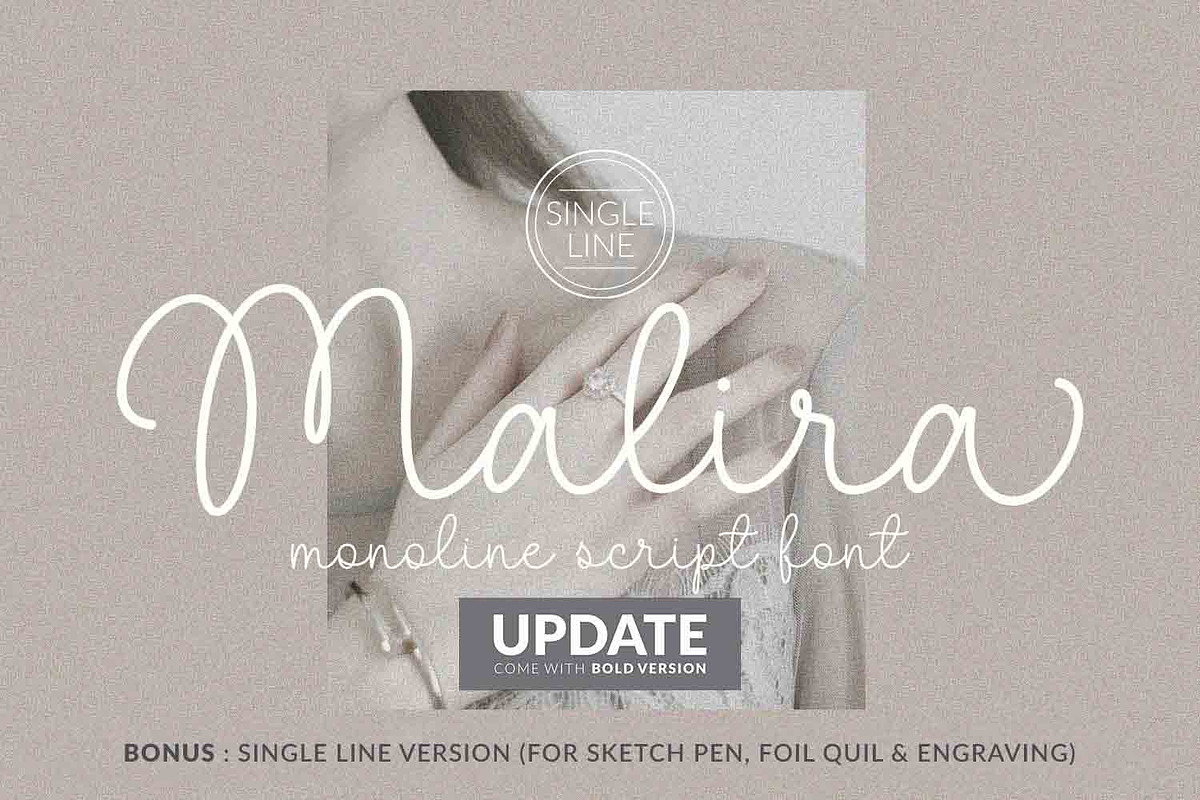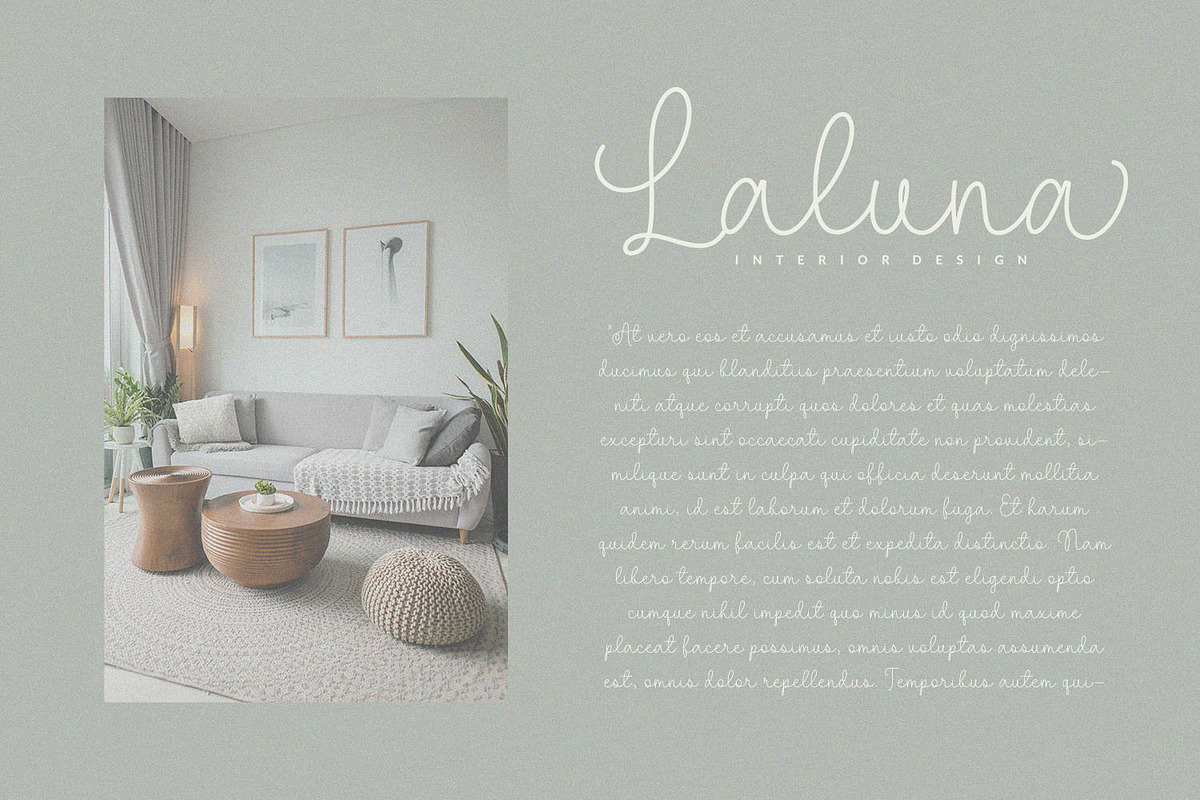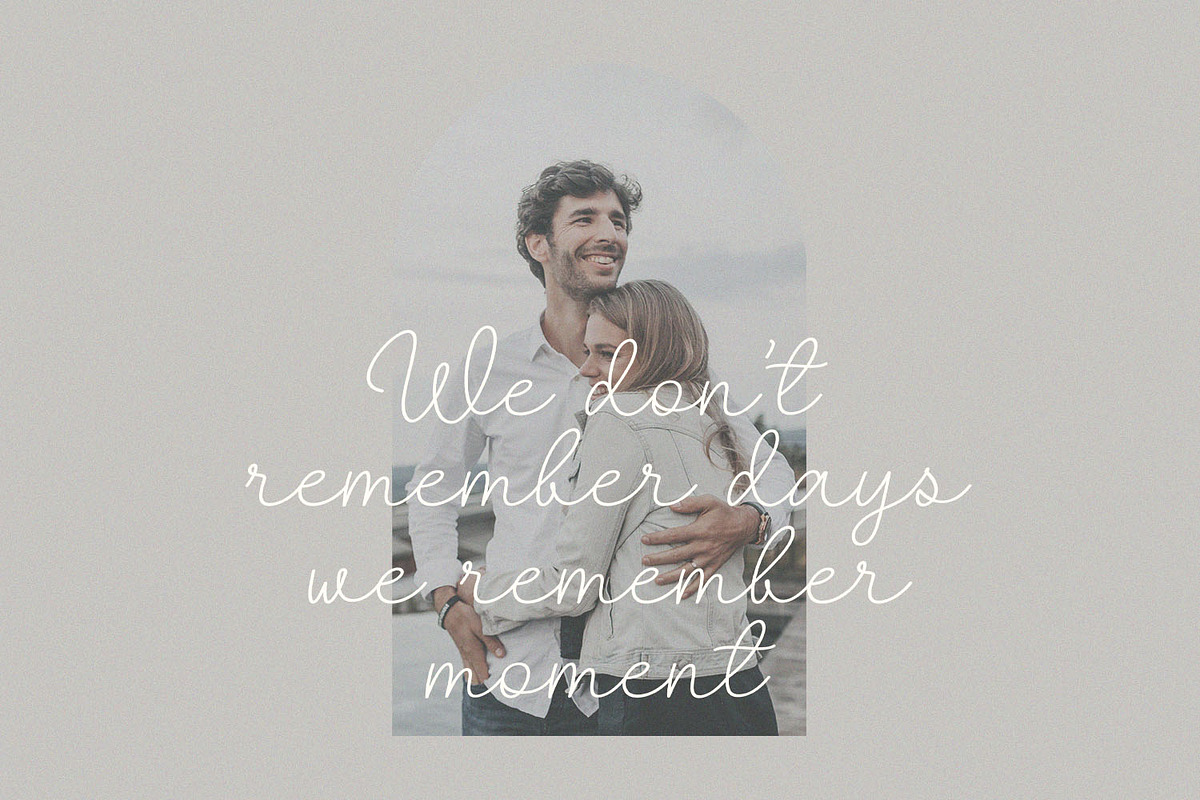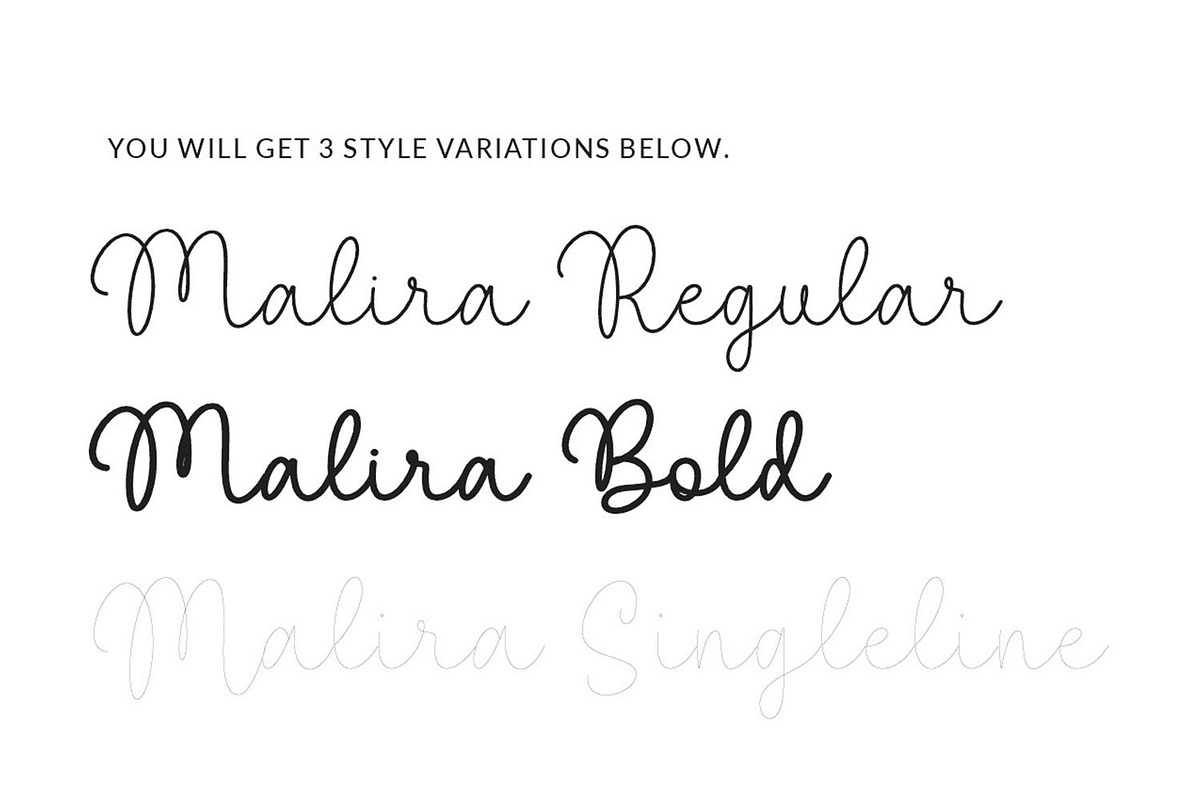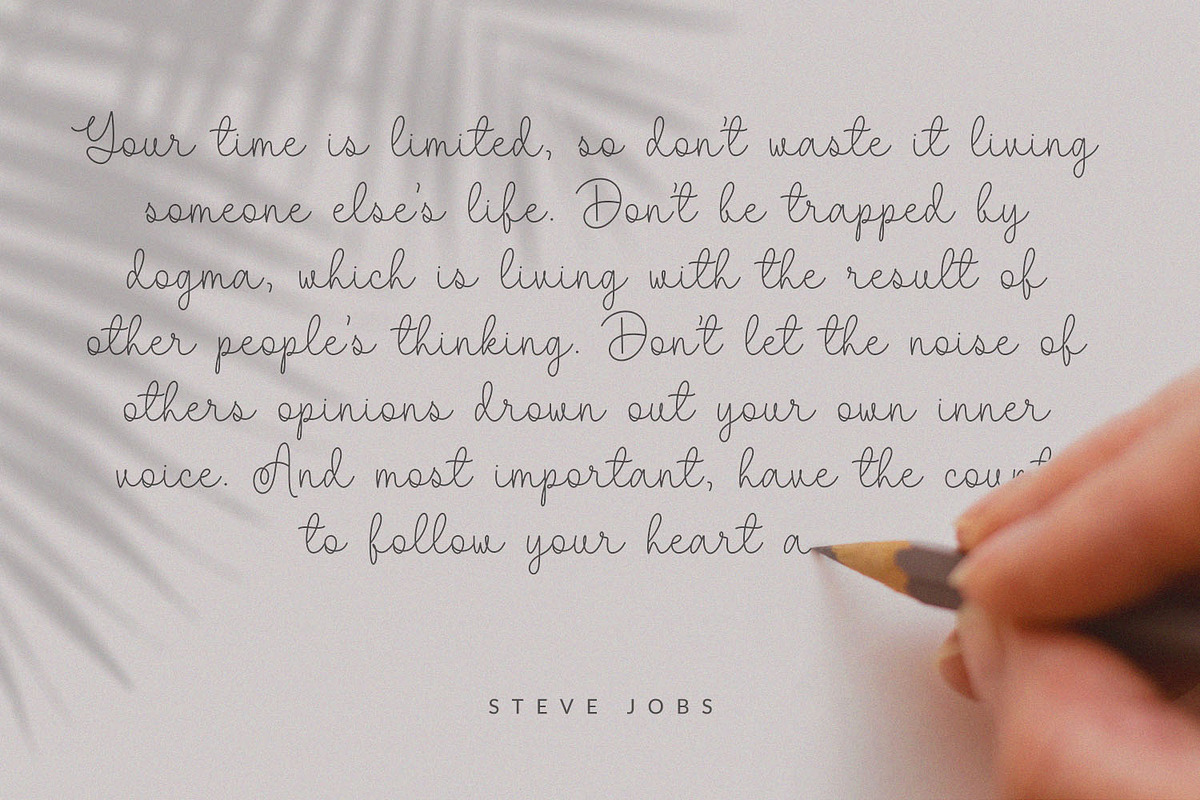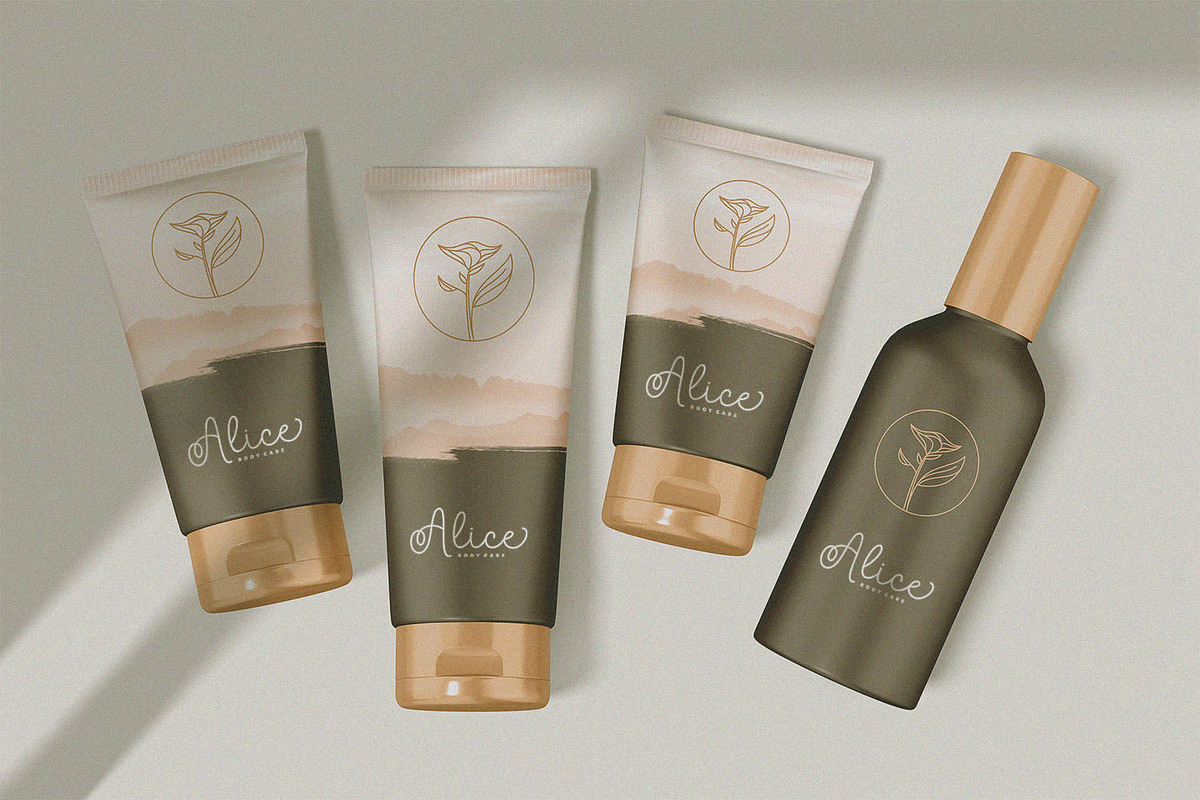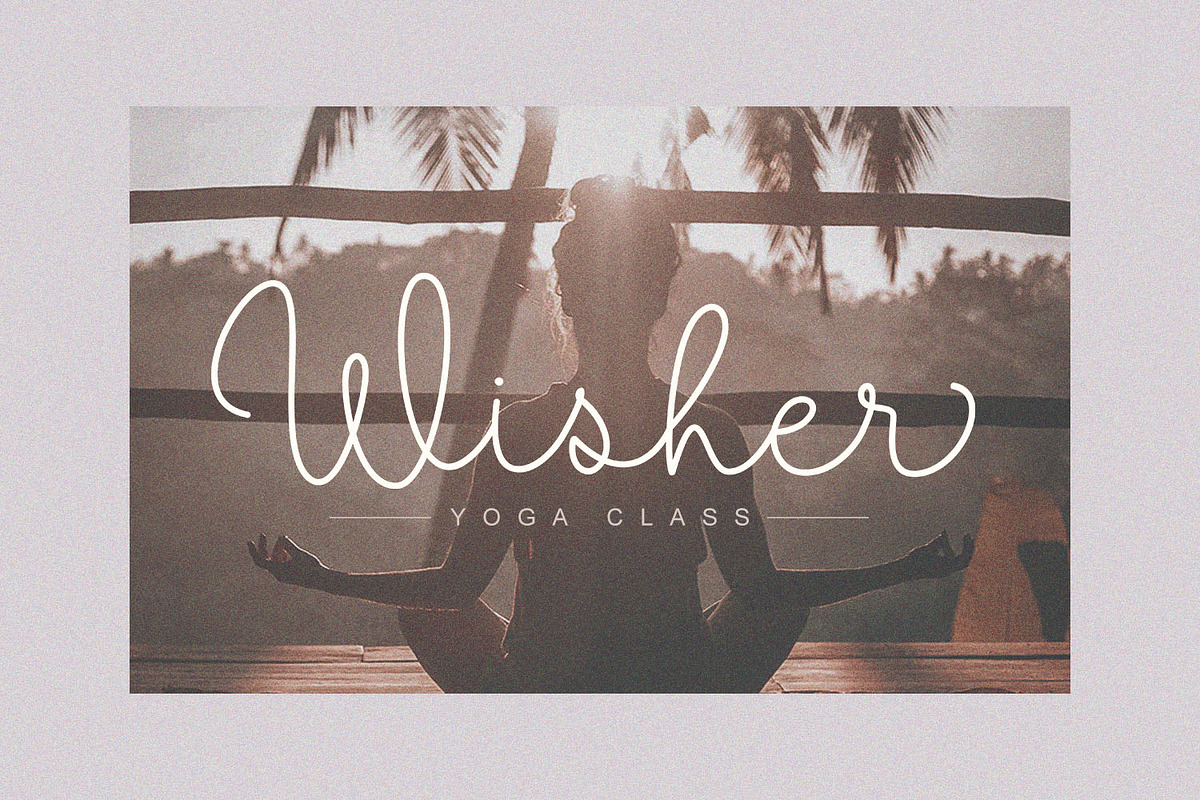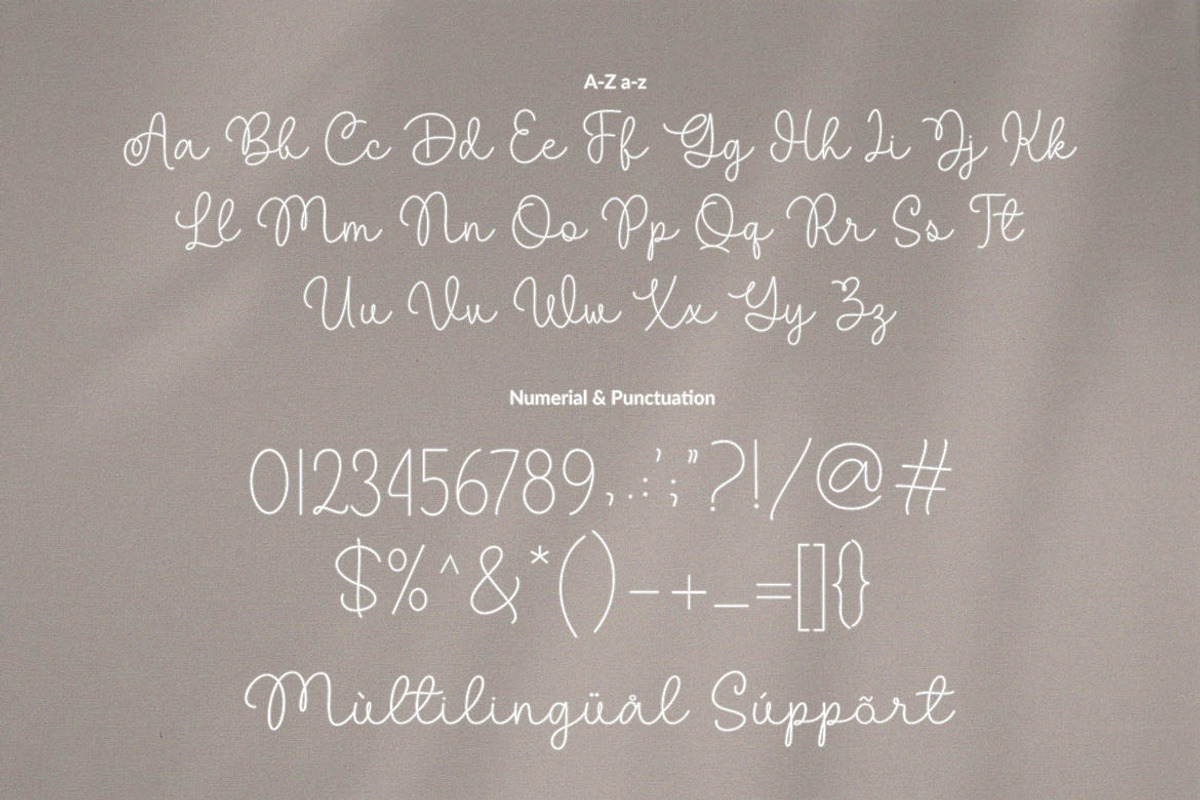
Malira - Monoline & Singleline Font
Introducing the new "Malira" font, a monoline script font. For those of you who are needing a touch of clean monoline handwritten Font, chic and modernity for your designs, this font was created for you! Malira was built with beautiful alternate ending. and It has an extensive lingual support, covering all European Latin scripts.